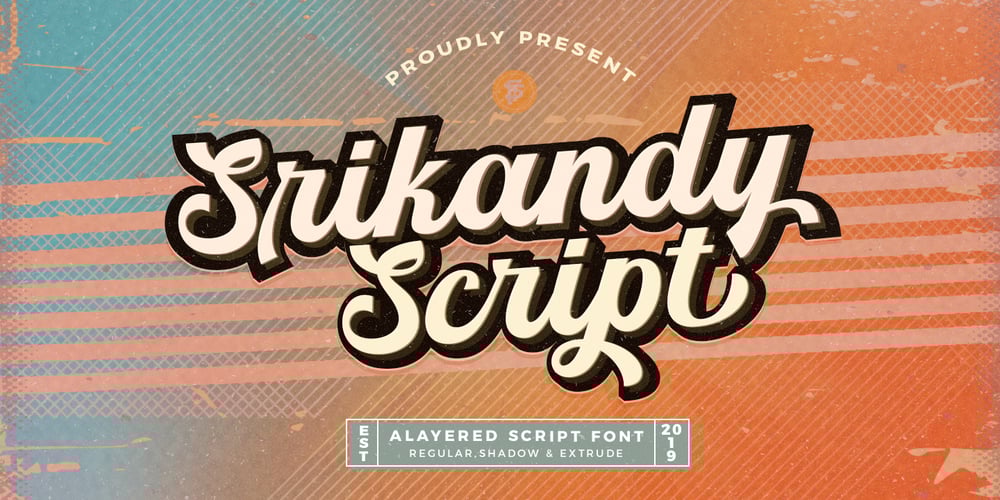
Srikandy Font Family was designed by Akmal Yusar and published by Picatype. Srikandy contains 2 styles and family package options. Srikandy looks bold and straight forward. Srikandy comes in three types, ordinary and special. The special type has unique small slices that provide more personal touch and make the font look customizable. This font is suitable for use as logos, clothing, wedding invitations, signage, sports clubs, motorbikes / cars, etc. This font has many opentype features such as binder, alternative style, contextual alternative, swash, etc. and supports multiple languages. To enable the OpenType Stylistic alternates, you need a program that supports OpenType features such as Adobe Illustrator CS, Adobe Indesign & CorelDraw X6-X7, Microsoft Word 2010 or later versions. We hope you enjoy the font, please feel free to comment if you have any thoughts or feedback. Or simply send me a PM or email me at picatypestudio@gmail.com. Thanks for purchasing and have fun!